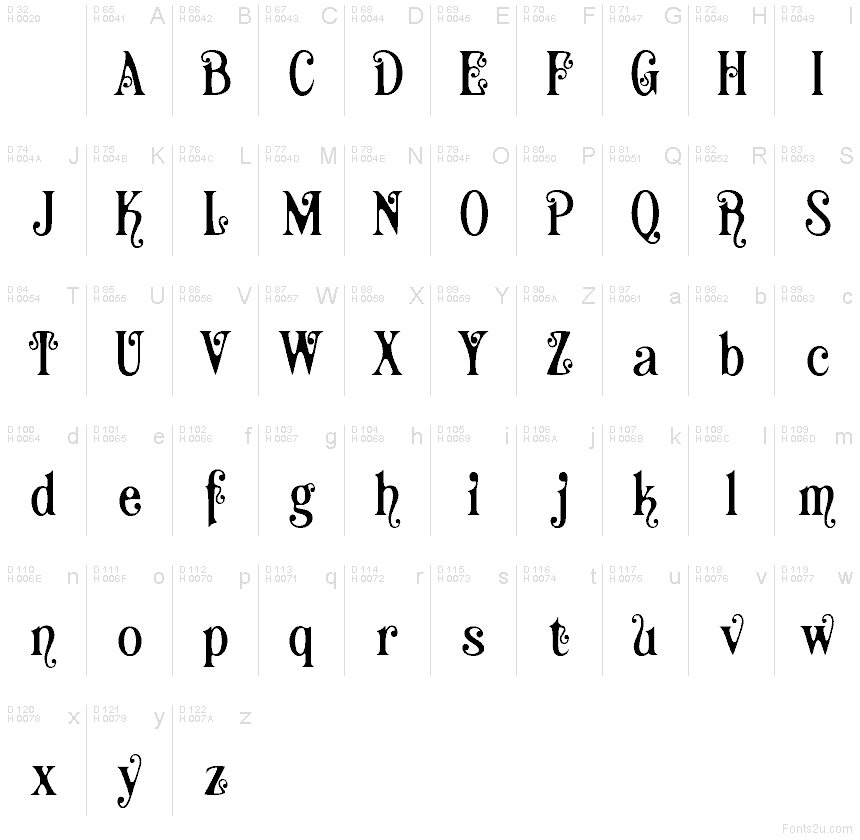
CSAquaryDrawn-Regular Demo
CS Aquary Drawn font by Craft Supply Co. is a free display font style with ornate, elegant, and whimsical features. It evokes nostalgia with its vintage flair, artistic flourishes, and decorative elements that create a rich visual aesthetic. Each character within is curly in style yet condensed in width at the same time in order to bring about legibility.
The interesting typeface suits projects dealing with typography-oriented logo design online and print ads for fashion brands that want to stand out. Display highlight text using the font on social media campaigns on Facebook or Instagram or present it when designing headings for magazines and books.